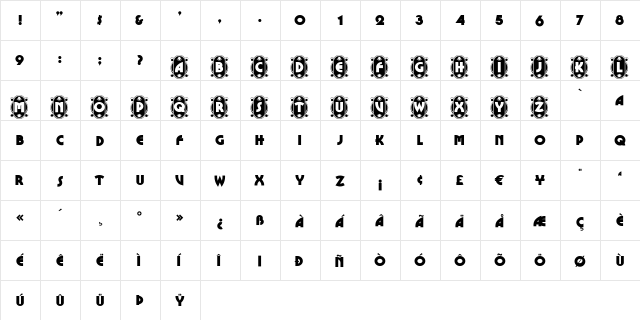
CameoAppearance Regular
Design Context for CameoAppearance Typeface
CameoAppearance is a composed and adaptable typeface that performs quietly and consistently across a wide range of design contexts.